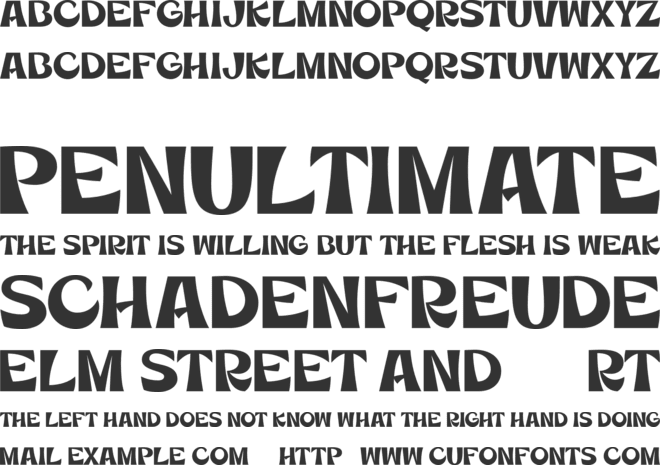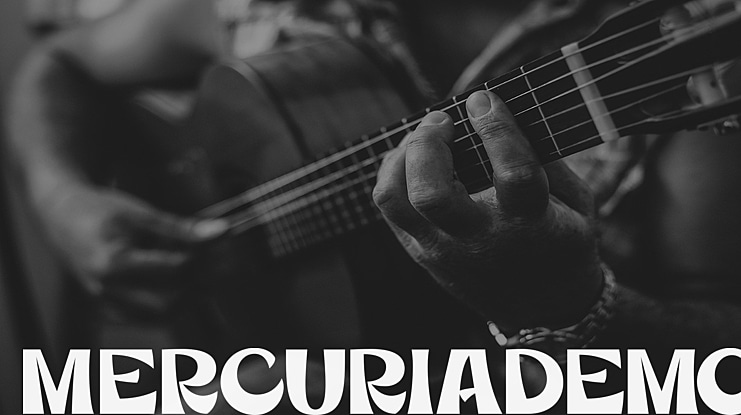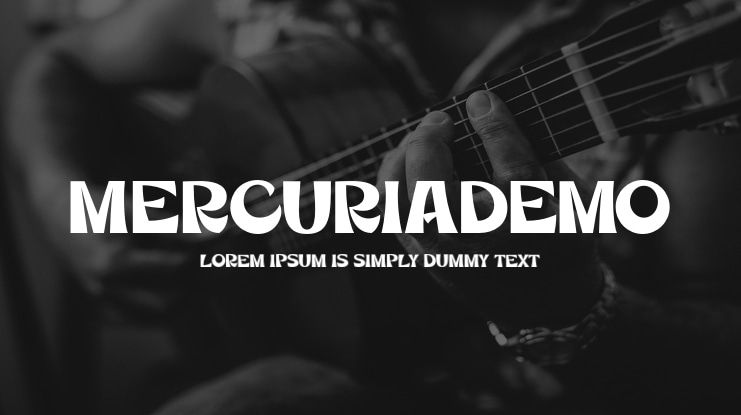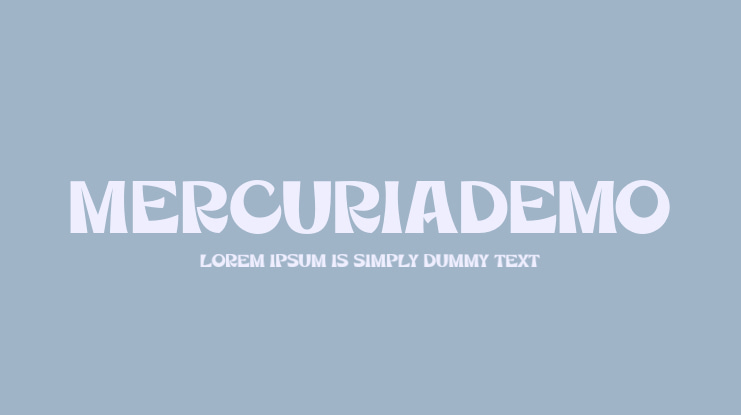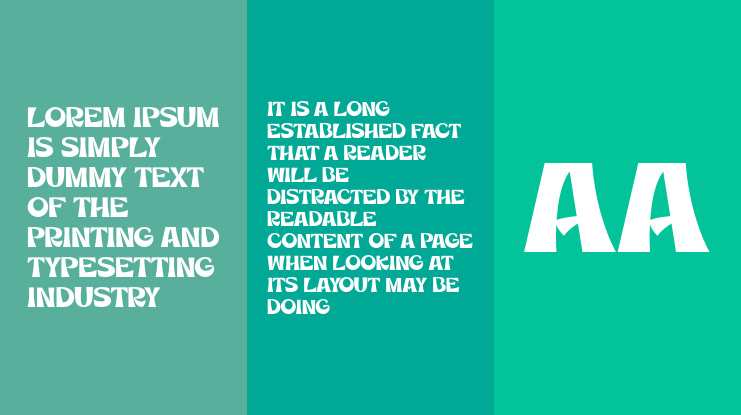
MercuriaDemo Font
This is MERCURIA, a bold, powerful, original, wavy and friendly font.
Its versatility allows Mercuria to be used in lots of different spaces and occasions, either using only a letter or creating long text lines, it will fit perfectly, giving your designs the perfect and necessary touch of originality and style.